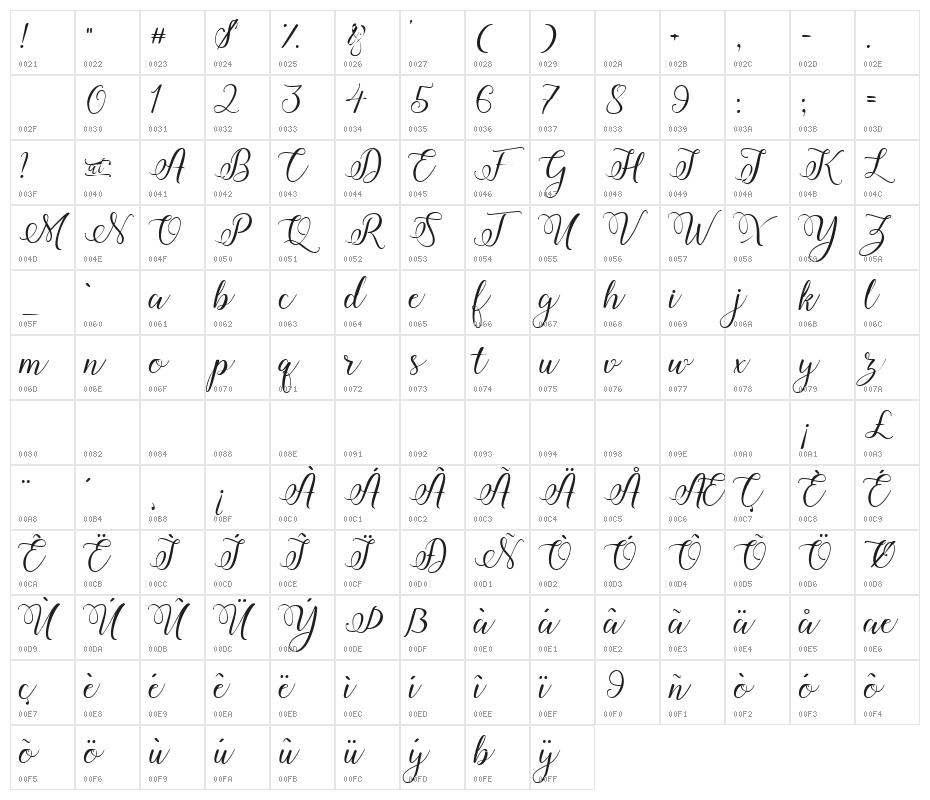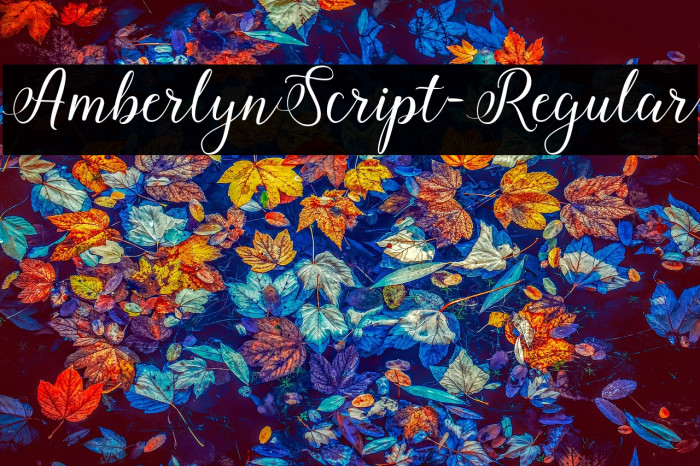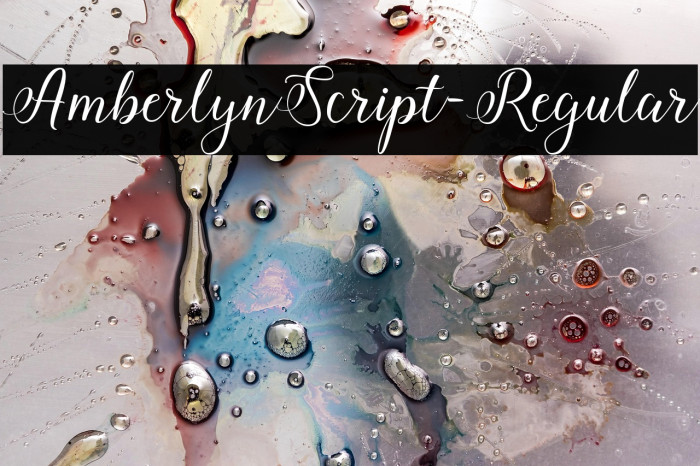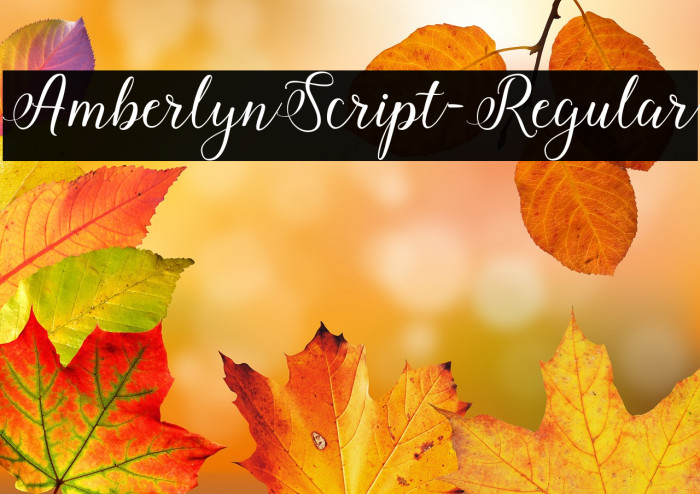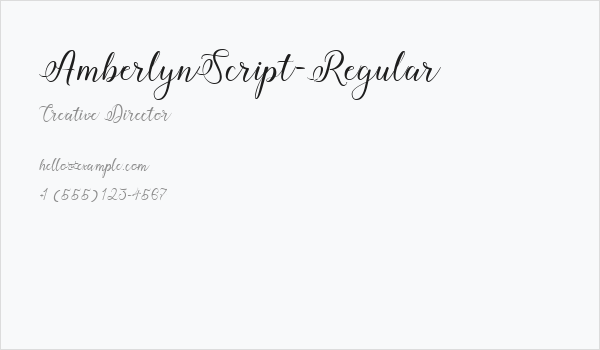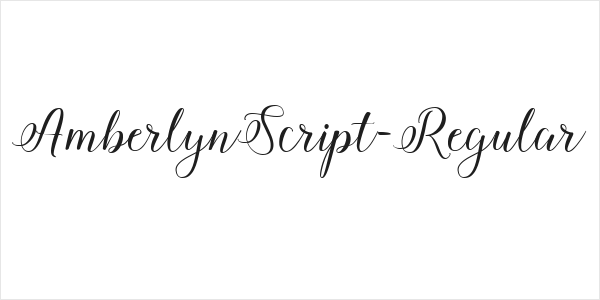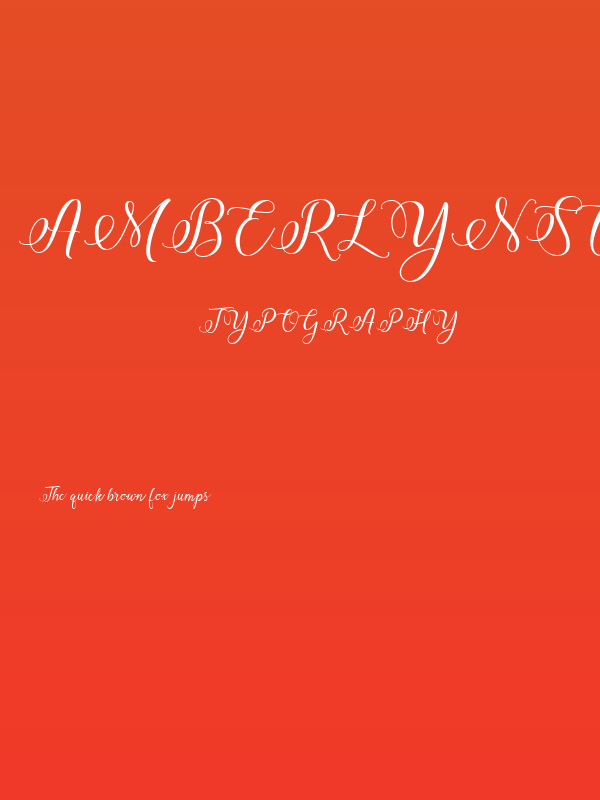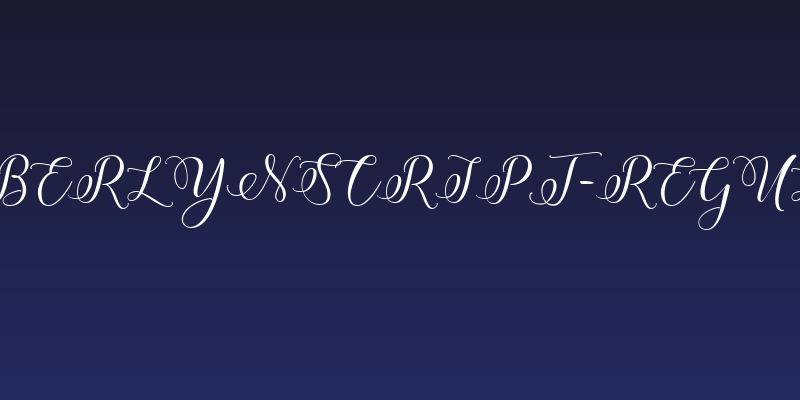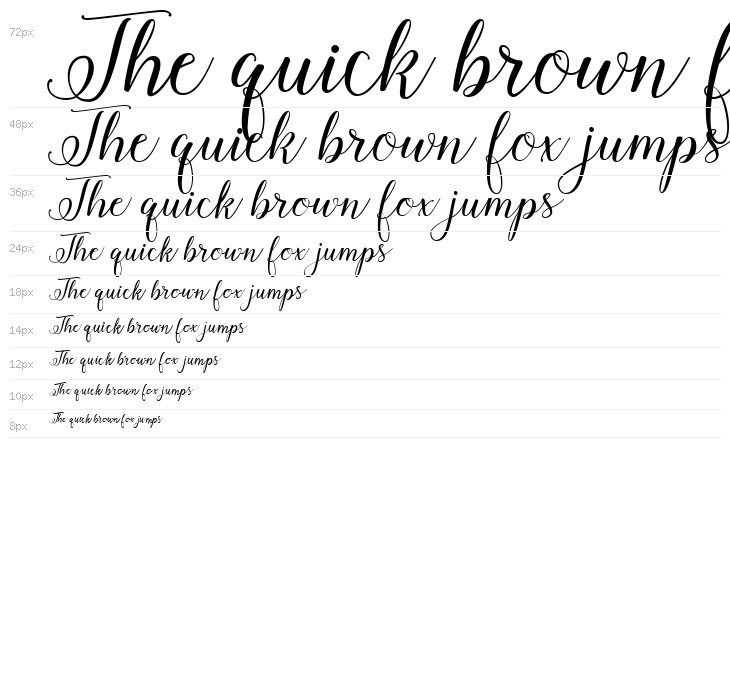
AmberlynScript-Regular Font
This elegant script font features graceful, flowing lines and a sophisticated style that mimics the fluidity of cursive handwriting. The uppercase letters are ornate with delicate loops and swirls, while the lowercase letters maintain a consistent, smooth flow. The numerals are stylishly curved, complementing the overall aesthetic. Special characters are designed with similar elegance, enhancing the font's versatility. This script is perfect for adding a touch of class and refinement to any project, making it ideal for invitations, branding, and decorative purposes.
| Proposed Projects | Ideal for wedding invitations, branding, greeting cards, and decorative designs. |